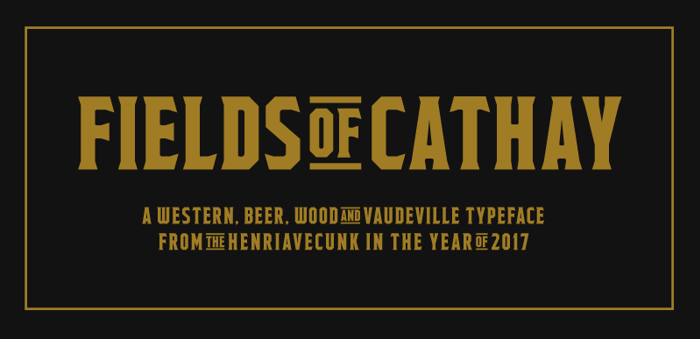
Fields of Cathay Font
Fields of Cathay is a display font for logos, titles and headlines. The style is suitable for country and western LPs, beer labels and vaudeville posters. Or whatever your creative insights tell you.